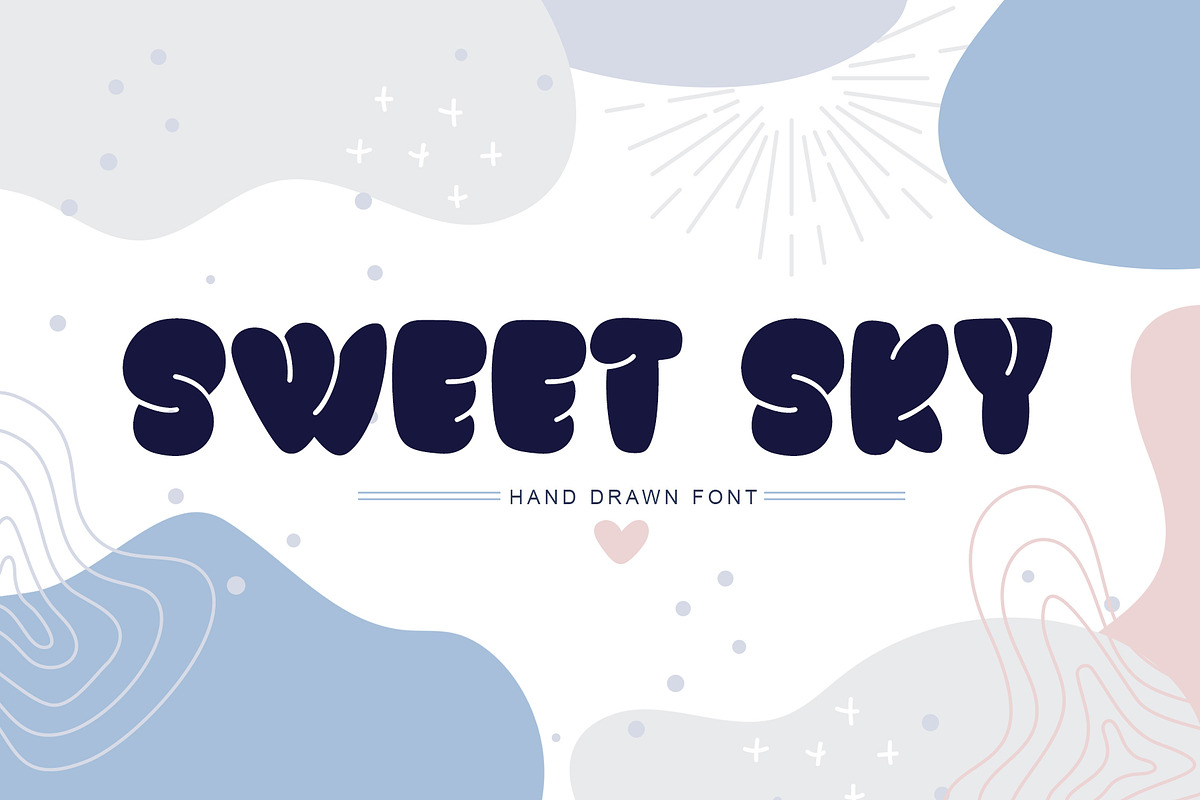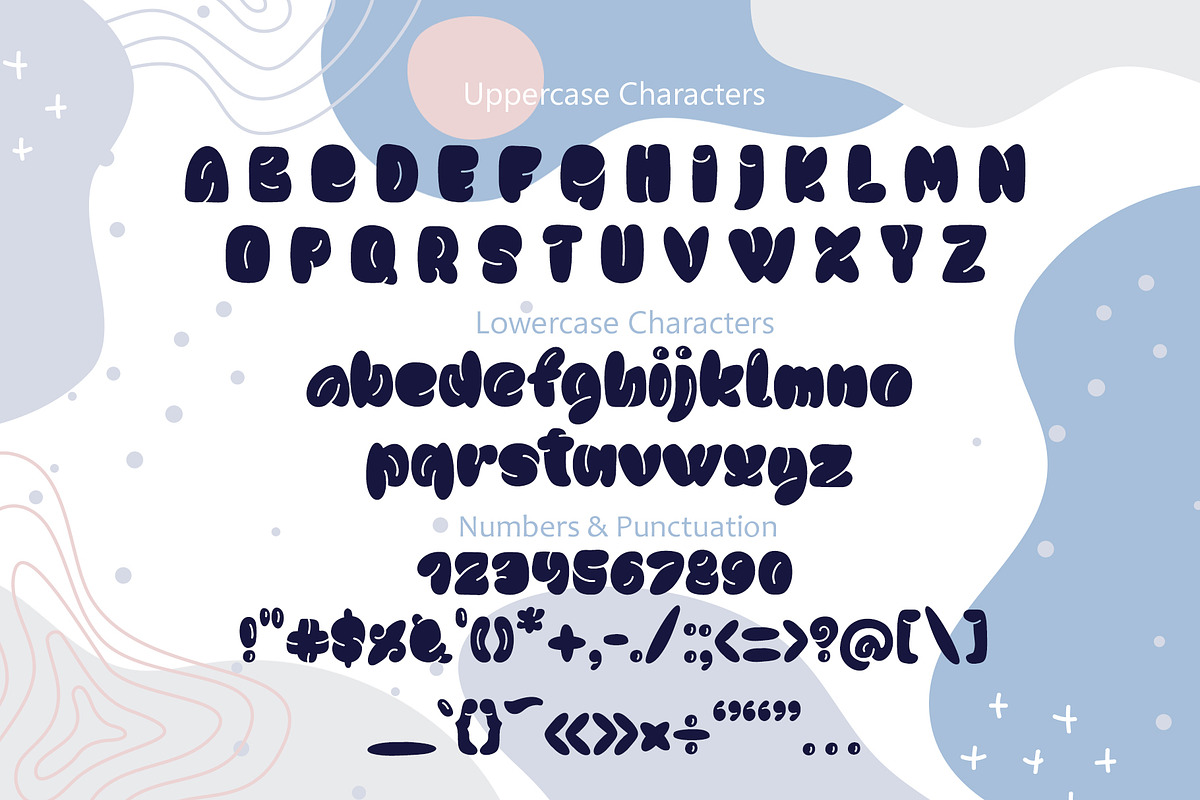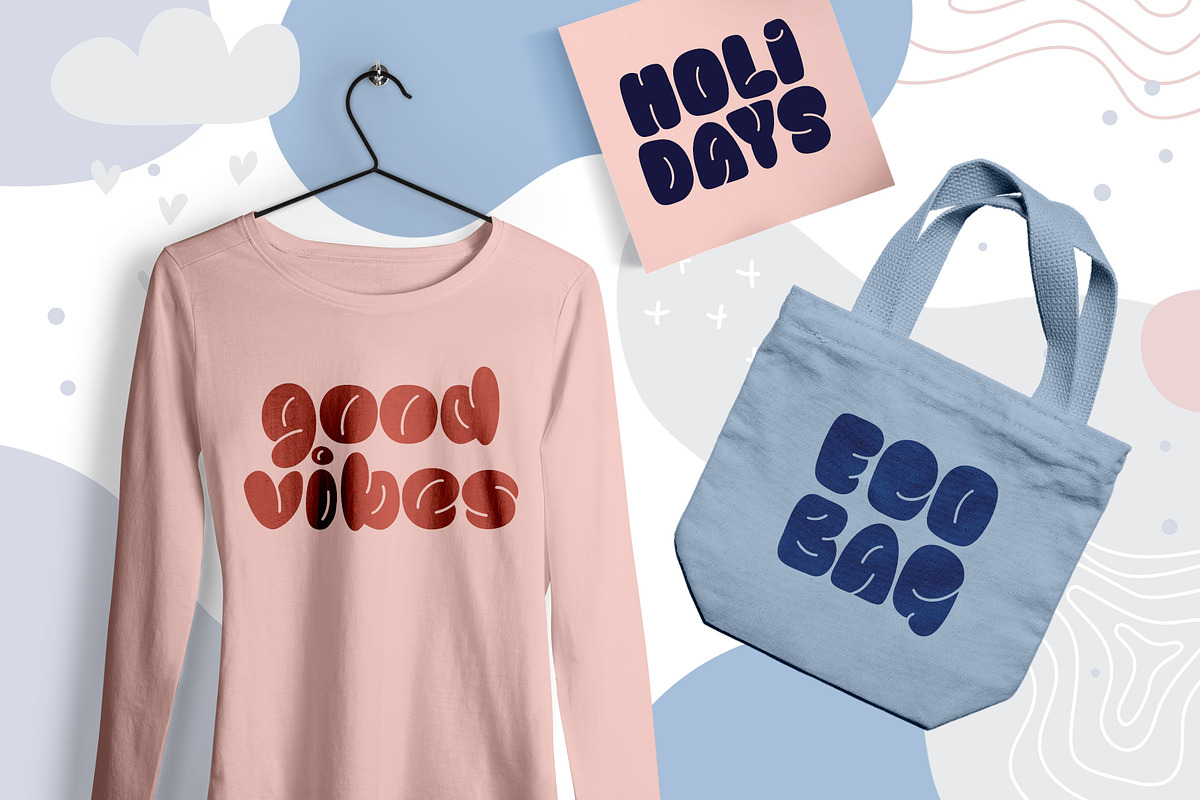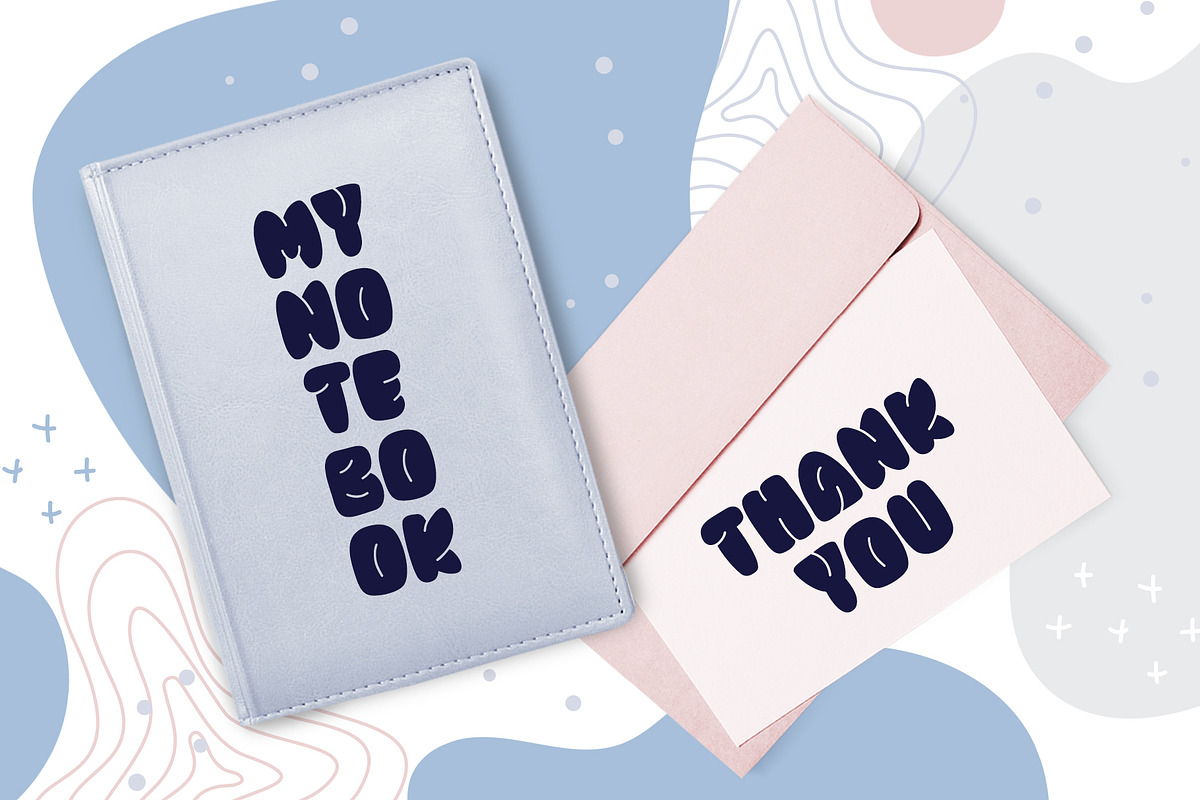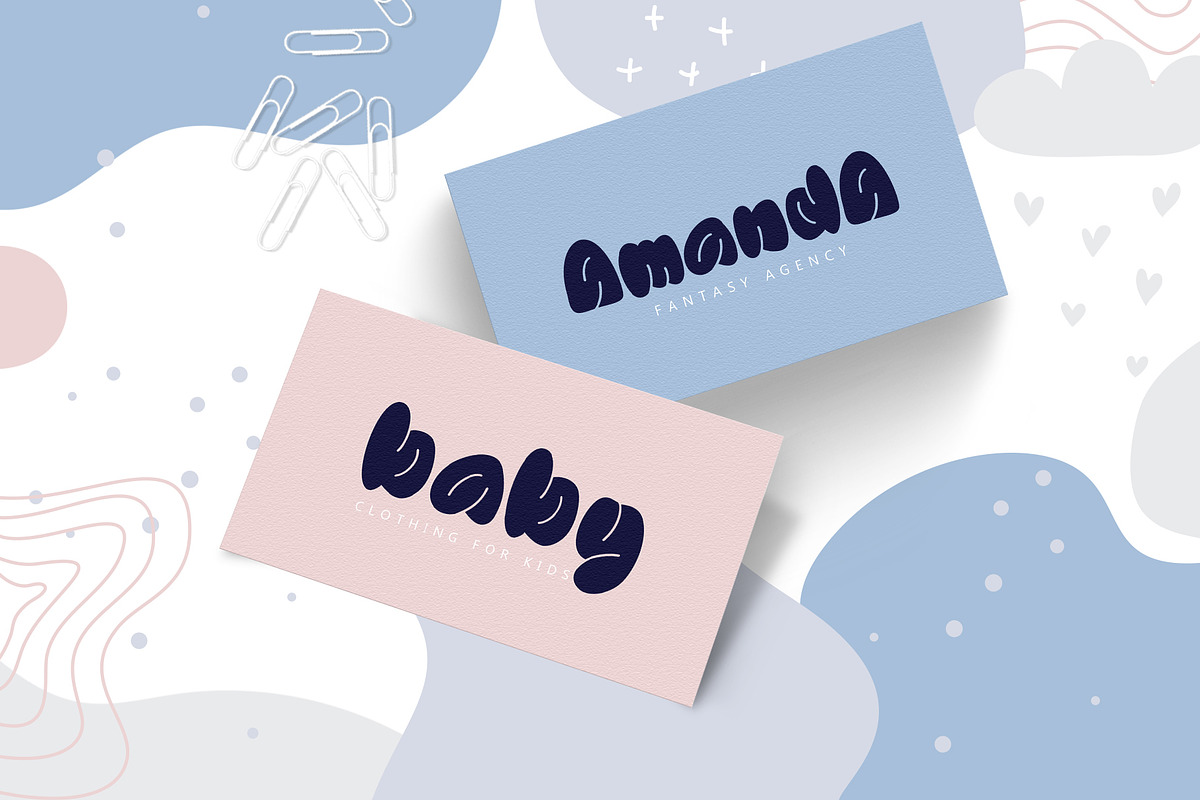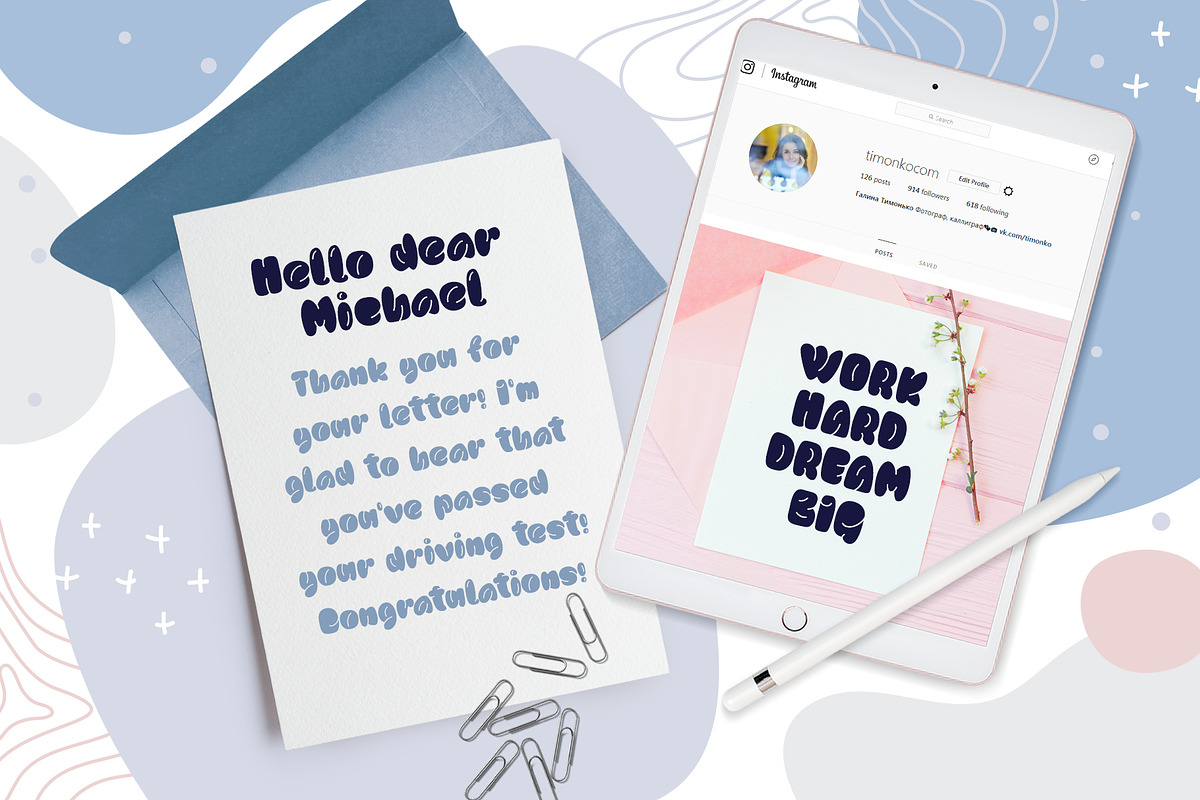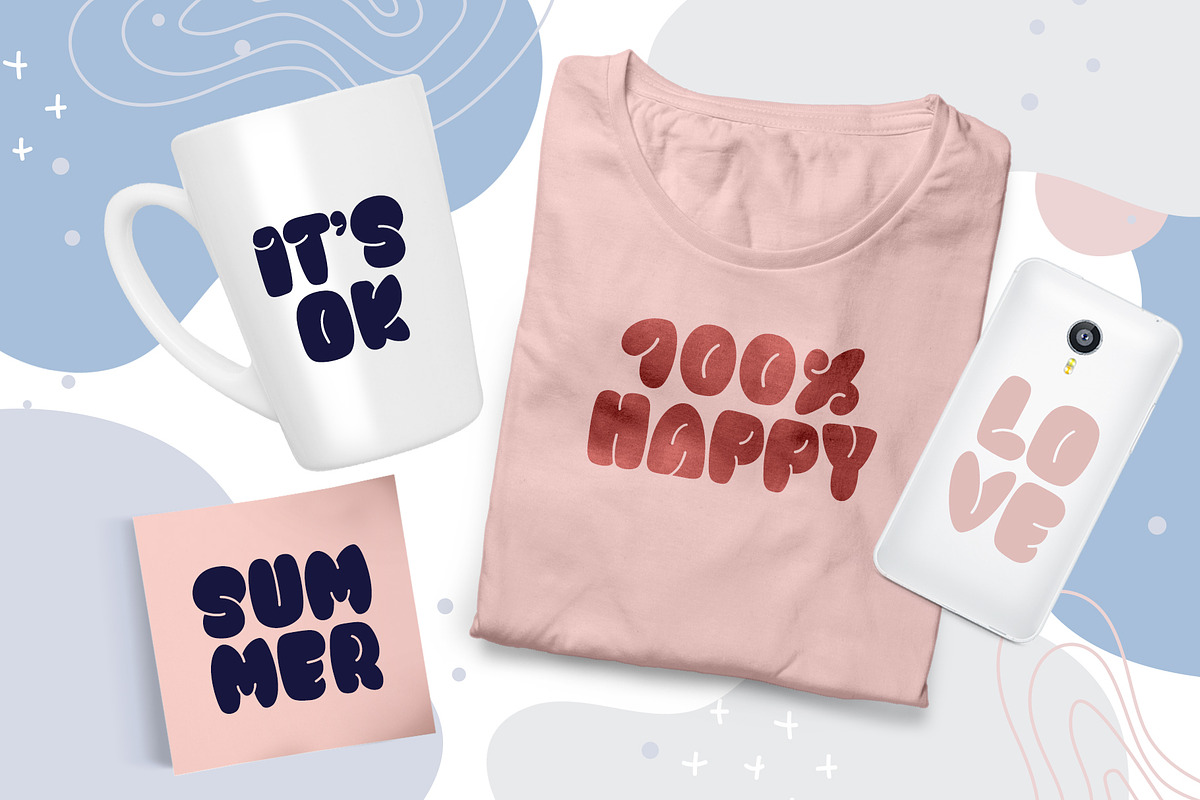
Sweet Sky Rotund Retro Groovy Font
Unique handmade cute Sweet Sky Rotund Retro Font is modern display font. Each time when you`ll type the text with Sweet Sky Font, you will want to return to it again and again, because it sweet dreams for designers, blogers and everybody who loves handwritting.
Titles and text for wedding albums, logo, children scrapbook hand drawn phrases or quotes for greeting cards (Christmas, Valentine`s Day, Mother`s Day, Easter, Birthday and other holidays), photo overlay, kids book, motivating quotes, short phrases, gift shops tag, presentation in social media Pinterest or Instagram.
Why Sweet Sky Rotund Retro Groovy Font is worth a look
Sweet Sky Rotund Retro Groovy Font by Happy Letters fits naturally into Branding, posters, packaging, typography.